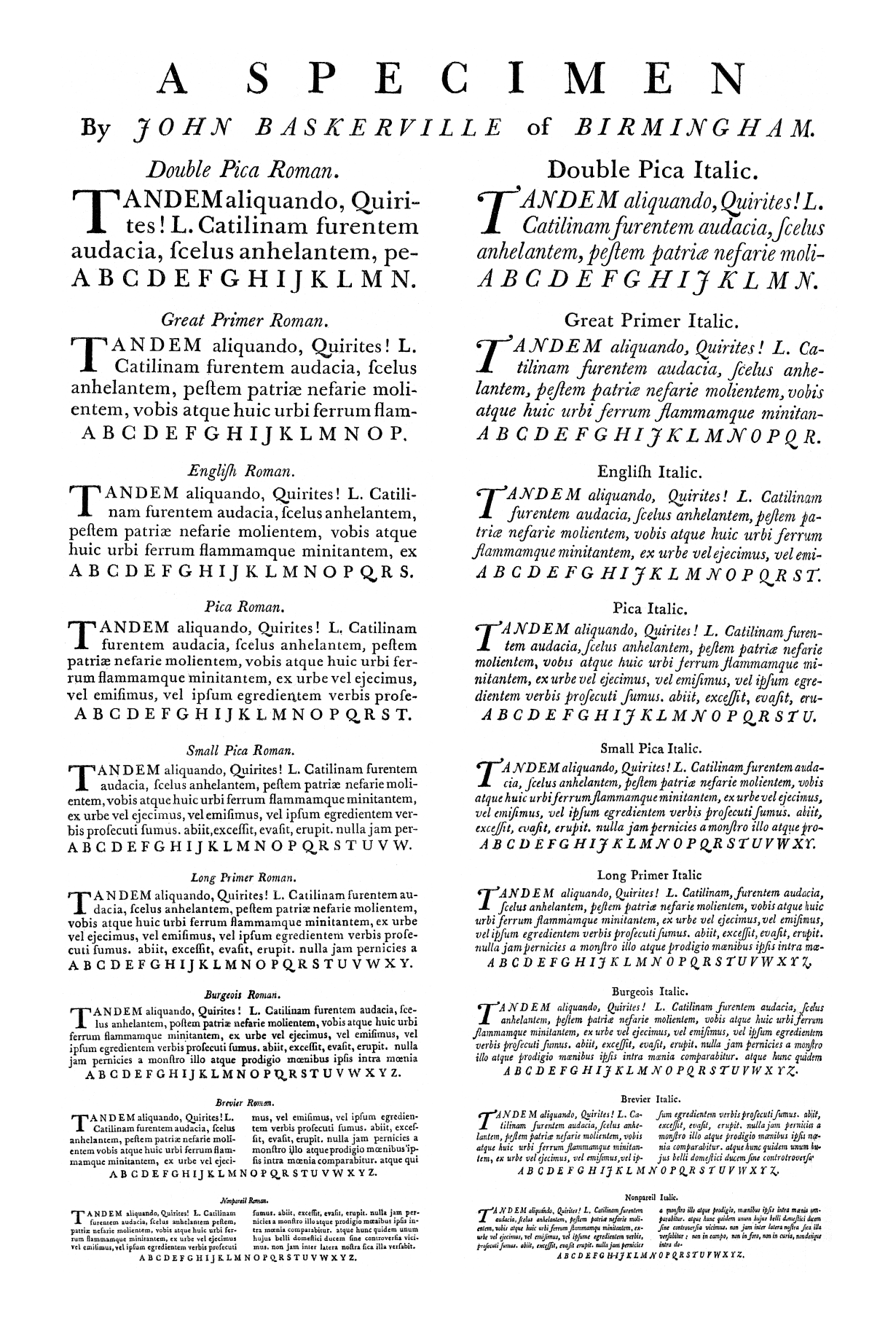
The entire editorial matter of Fortune (during the 1930s) was set in Baskerville—headlines, captions, text; some on laid paper, some on coated. They were magnificent publications.
Stephenson Blake Baskerville Old Face, ITC New Baskerville